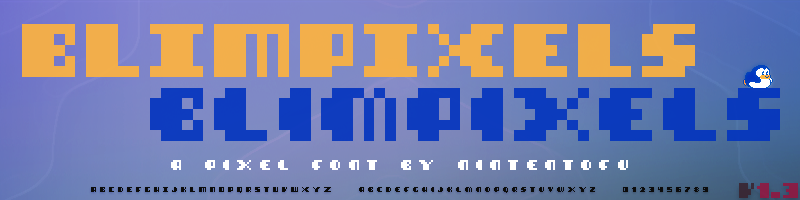
Font name: | Blimpixels |
Author: | Spencer nintentofu Longtin |
Note by Spencer nintentofu Longtin | |
*updated to version 1.3 on 9/17/13 fixed a few very minor kinks, one being the two V's were swapped to better match the hard and soft edges, minor changes to numericals 2 & 7. Lowercase m was fixed also cause of error. Please update to new version! Blimpixels, an original pixel font by nintentofu Blimpixels is a true-type pixel font featuring uppercase-style letters with a thick, sleek and pudgy look. Includes both hard-edge (capitals) and soft-edge (lowercase) versions. open and 100% free to use for independent productions, artworks, games, etc. please give credit, and contact for commercial use blimpixels by nintentofu http://nintentofu.deviantart.com/ |